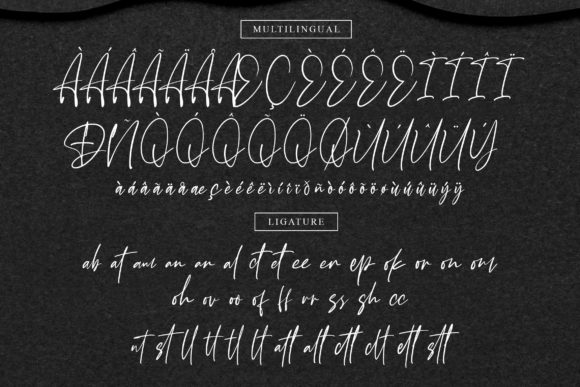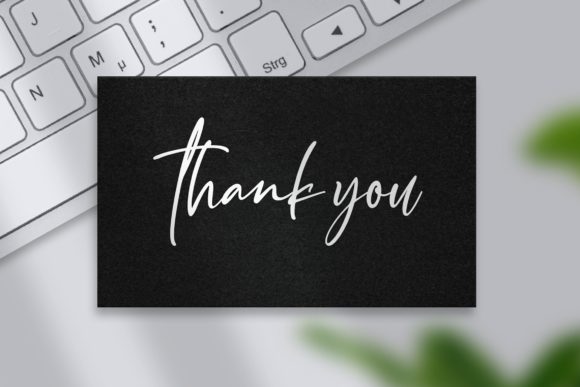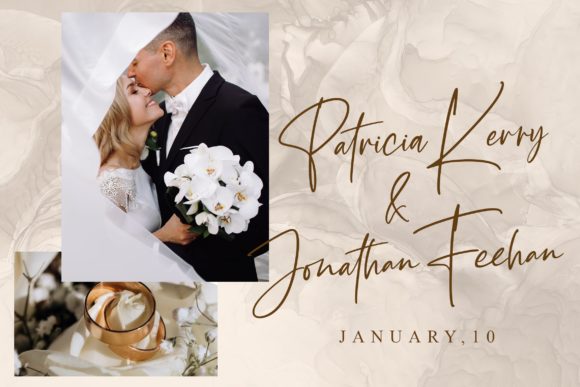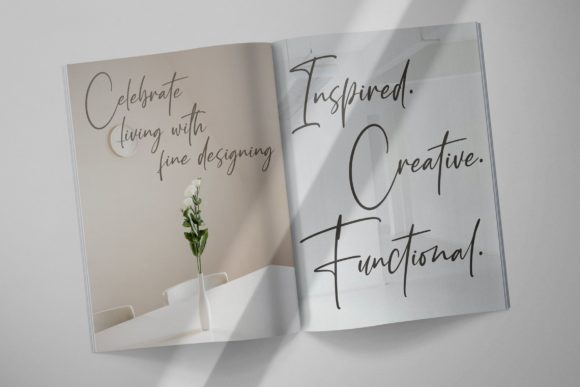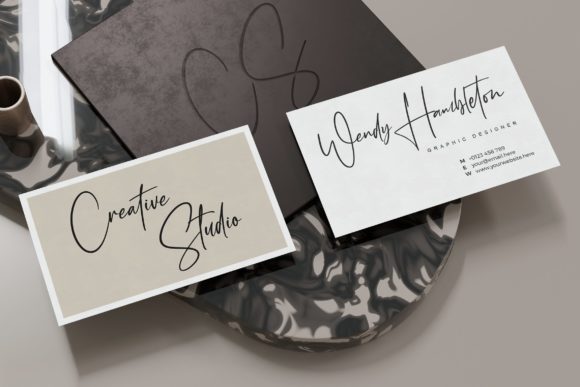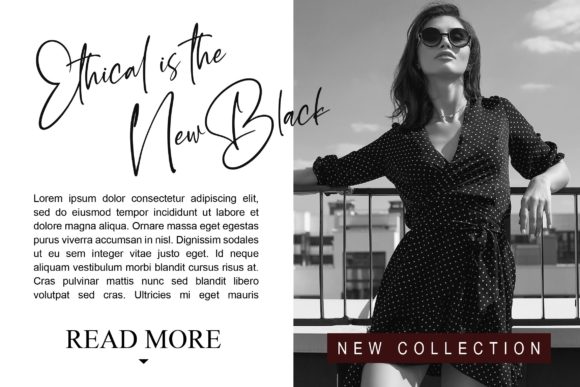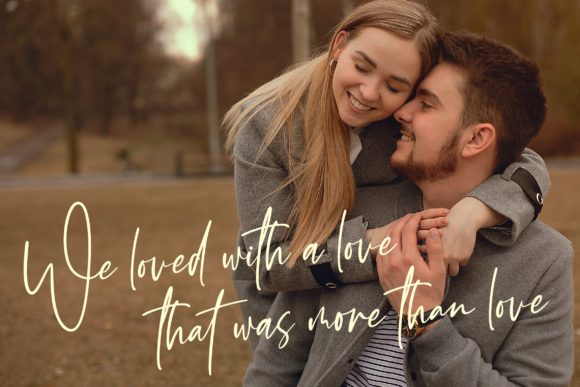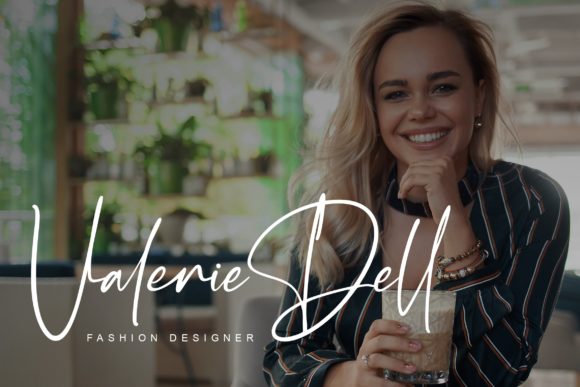
About Wancester Signature Font
Wancester Signature is a delightful and elegant handwritten font that brings a touch of sophistication and charm to any design. With its flowing and well-balanced characters, this font is a perfect match for a wide variety of projects, adding a sense of grace and beauty.
The varying baseline of Wancester Signature adds a dynamic and lively element to your designs, creating a sense of movement and fluidity. The smooth lines and flawless glyphs give the font a polished and refined look, making it a great choice for upscale and luxurious projects.
One of the highlights of Wancester Signature is its stunning alternates. These alternative characters provide you with creative possibilities to customize and personalize your designs. Whether it’s using different letterforms for a unique look or adding stylish swashes to enhance the elegance, Wancester Signature gives you the flexibility to make your creations truly one-of-a-kind.
Wancester Signature can be used in a wide range of applications, from wedding invitations and thank you cards to logos, business cards, and more. It adds a personal and handcrafted touch to your designs, making them stand out and leave a lasting impression on your audience.
With its delicate and flowing style, Wancester Signature brings life and character to your creative ideas. Embrace the beauty and versatility of Wancester Signature in your designs, and watch them come alive with elegance and grace.